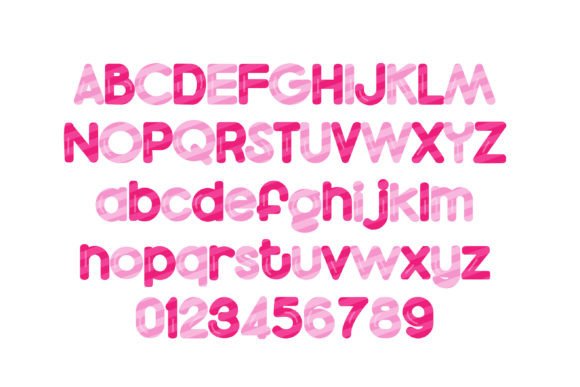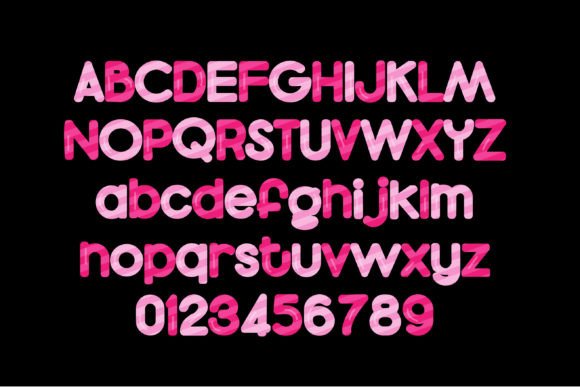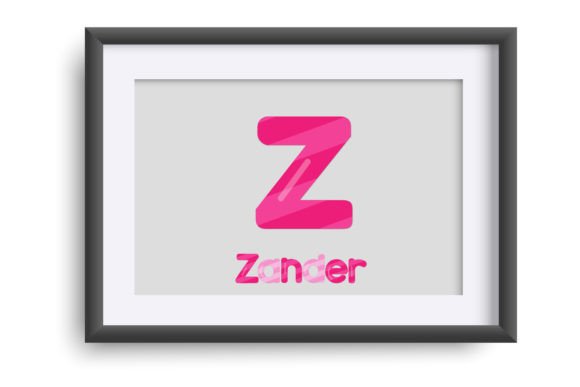
Introduction to Candy Stick Pink Font
This full-color font features candy style, striped lettering.
There is an alt version of each letter in a different color that you can access through your system or Silhouette’s character map If you are looking for a versatile, high-quality font that can be used for a variety of projects, then a full-color SVG font is the perfect choice for you.
Key Features of Candy Stick Pink Font